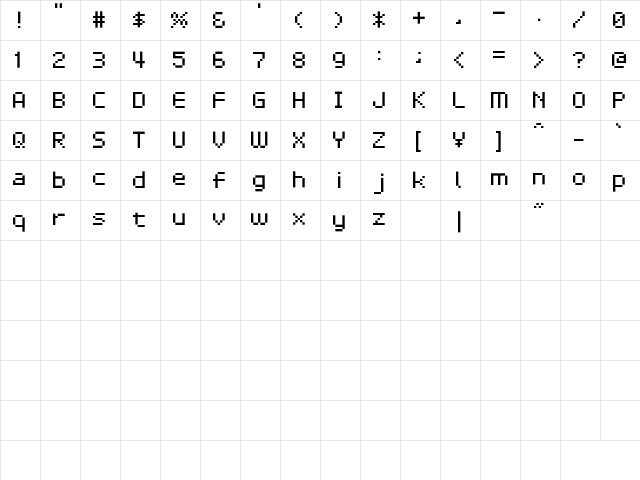
D3 LiteBitMapism Regular Free Font
D3 LiteBitMapism Regular
Design Context for D3 LiteBitMapism
D3 LiteBitMapism is rooted in pixel-grid construction, making it a natural fit for game UI, retro computing aesthetics, and digital nostalgia projects.
Pro Tip: Use D3 LiteBitMapism at sizes that align with its pixel grid for the sharpest rendering - scaling to non-integer multiples can introduce unwanted blur.